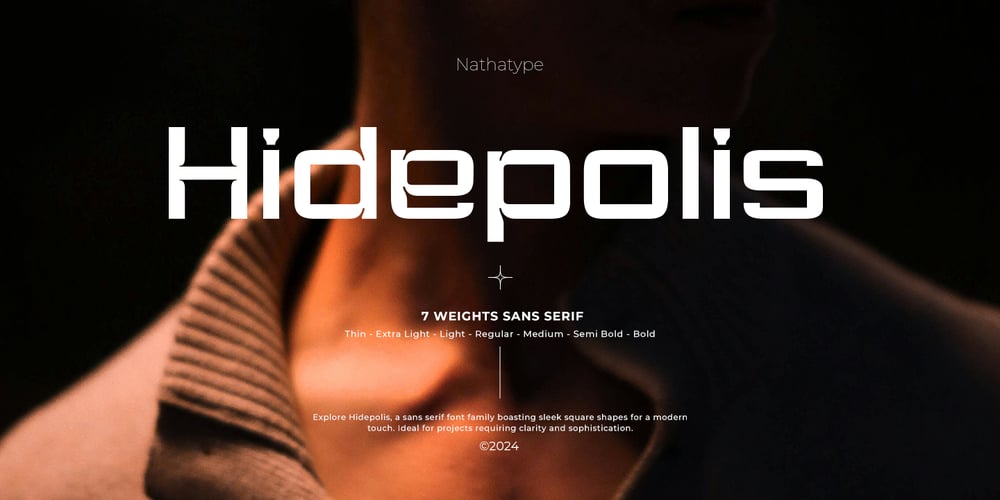
Hidepolis Font Family was designed by Donis Miftahudin and published by Nathatype. Hidepolis contains 7 styles and family package options. Introducing Hidepolis, a sleek and versatile sans-serif font family. With seven different font weights to choose from, Hidepolis offers a wide range of options to suit your design needs. Each font weight in the Hidepolis family is made in box-shaped design that exudes a sense of strength and stability.The modern vibes of the font make it perfect for projects that demand a clean and contemporary aesthetic. What sets Hidepolis apart is its versatility and adaptability. In addition, enjoy the features here.Features: Ligatures Multilingual Supports PUA Encoded Numerals and Punctuations Hidepolis fits in headlines, logos, posters, flyers, branding materials, print media, editorial layouts, and many more designs. Find out more ways to use this font by taking a look at the font preview.Thanks for purchasing our fonts. Hopefully, you have a great time using our font. Feel free to contact us anytime for further information or when you have trouble with the font. Thanks a lot and happy designing.